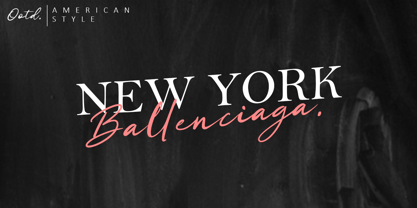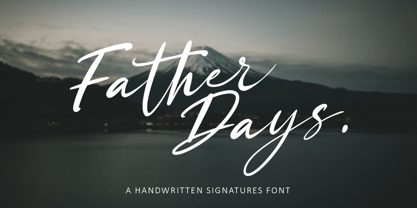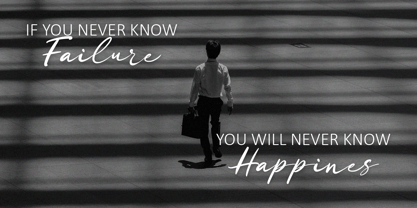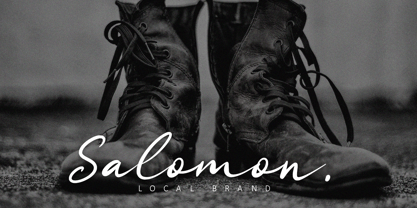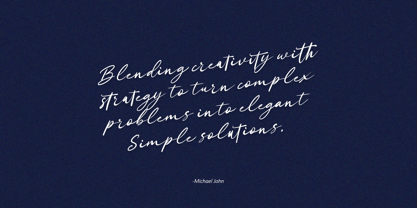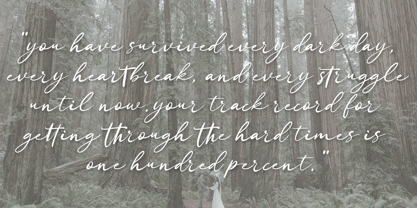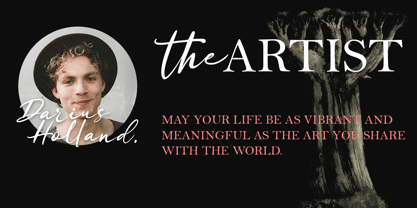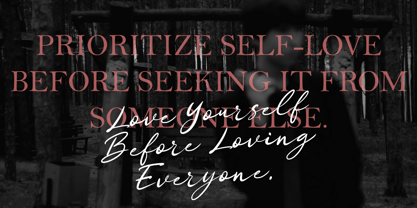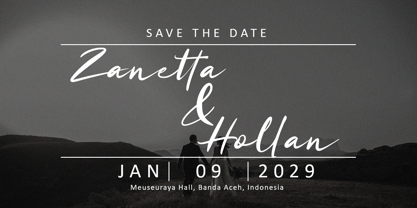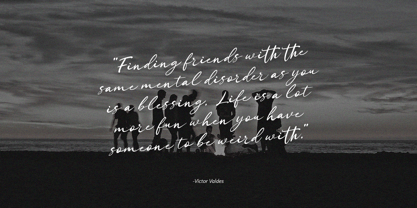
Father Days
by Struggle Studio
The Father Days Font Family was designed by Andri Kurniawan and published by Struggle Studio. Father Days contains 1 styles. More about this family
Father Days - A Handwritten Signature Font Elevate your designs with the authentic touch of Father Days. This handwritten signature font captures the essence of a natural pen stroke, blending organic flow with a bold, sophisticated character. Designed to feel personal yet professional, its sharp and elegant curves create a premium aesthetic that stands out in any composition. Father Days is the perfect choice for high-end branding, luxury logos, and editorial layouts. Whether you are crafting wedding invitations, social media quotes, or a professional watermark for photography, this font adds a human touch that feels both timeless and modern. Its versatile style works seamlessly across stationery, fashion branding, and personalized gift designs, offering a unique identity to every project